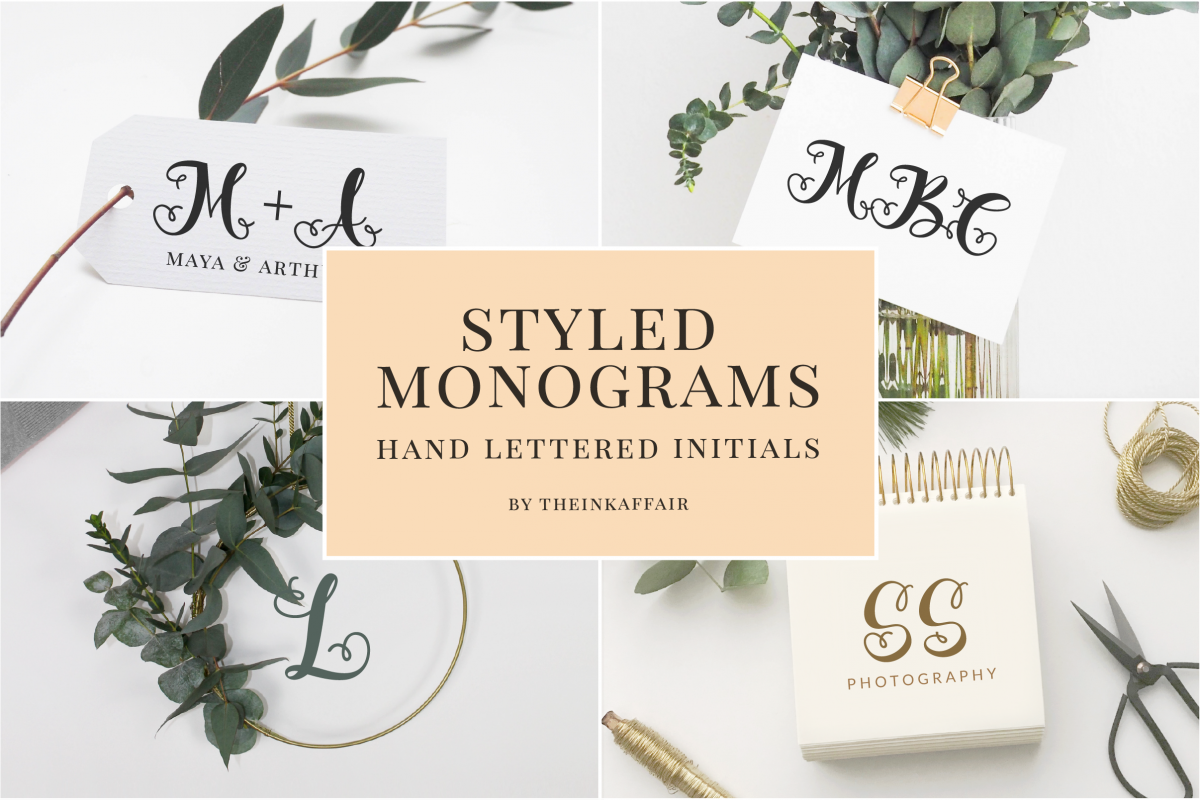
Styled Monograms, a collection of hand lettered initials to help you create your mark in a font format. Classy and stylish, this font includes beautifully hand drawn initials, both as uppercase and lowercase letters. Use them for wedding stationery, invitations, branding, logos, announcements, prints and gifts. Styled Monograms allow you to create single letter and well as custom 2 and 3-letter monograms.